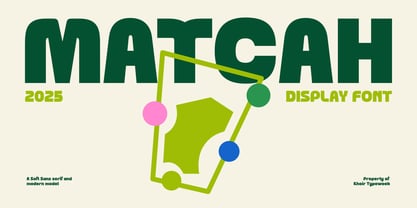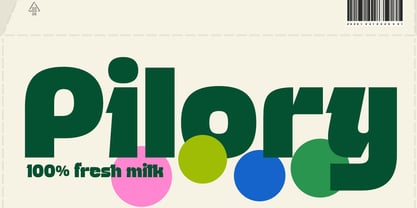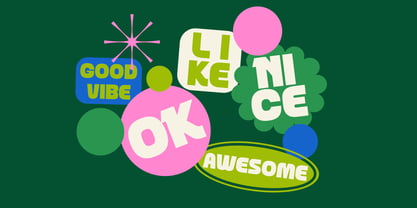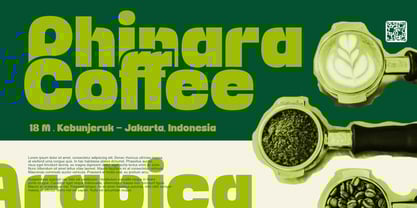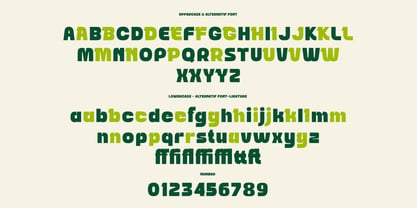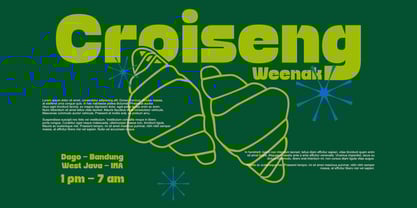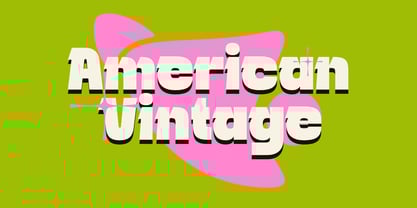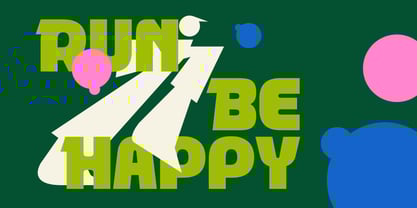
Matcah
by Khoir
The Matcah Font Family was designed by Muhammad Romzul Khoir and published by Khoir. Matcah contains 1 styles.
Designers: Muhammad Romzul Khoir
Publisher: Khoir
Foundry: Khoir